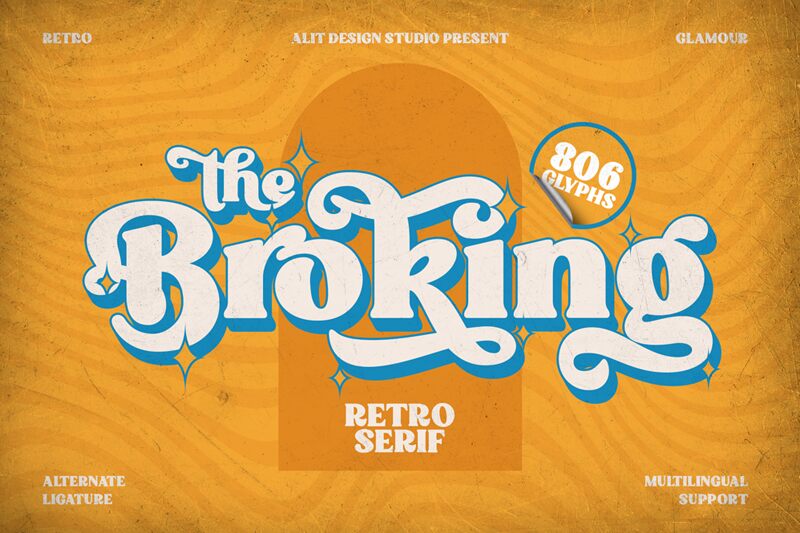
Broking, a creation by Alit Design, is a display font that commands attention with its extra-bold weight and retro style. Exuding confidence and charm, this typeface pairs the assertiveness of thick strokes with the flair of vintage design, making it an ideal choice for projects that demand both impact and character. Its robust letterforms are designed to make a statement, while its nostalgic elegance allows it to blend seamlessly into branding, advertising, and editorial designs that aim to evoke a classic yet bold aesthetic.
Whether used in large headlines or as a striking accent, Broking's presence is unmistakably powerful and versatile for creatives looking to infuse their work with a touch of time-honored sophistication.
Broking